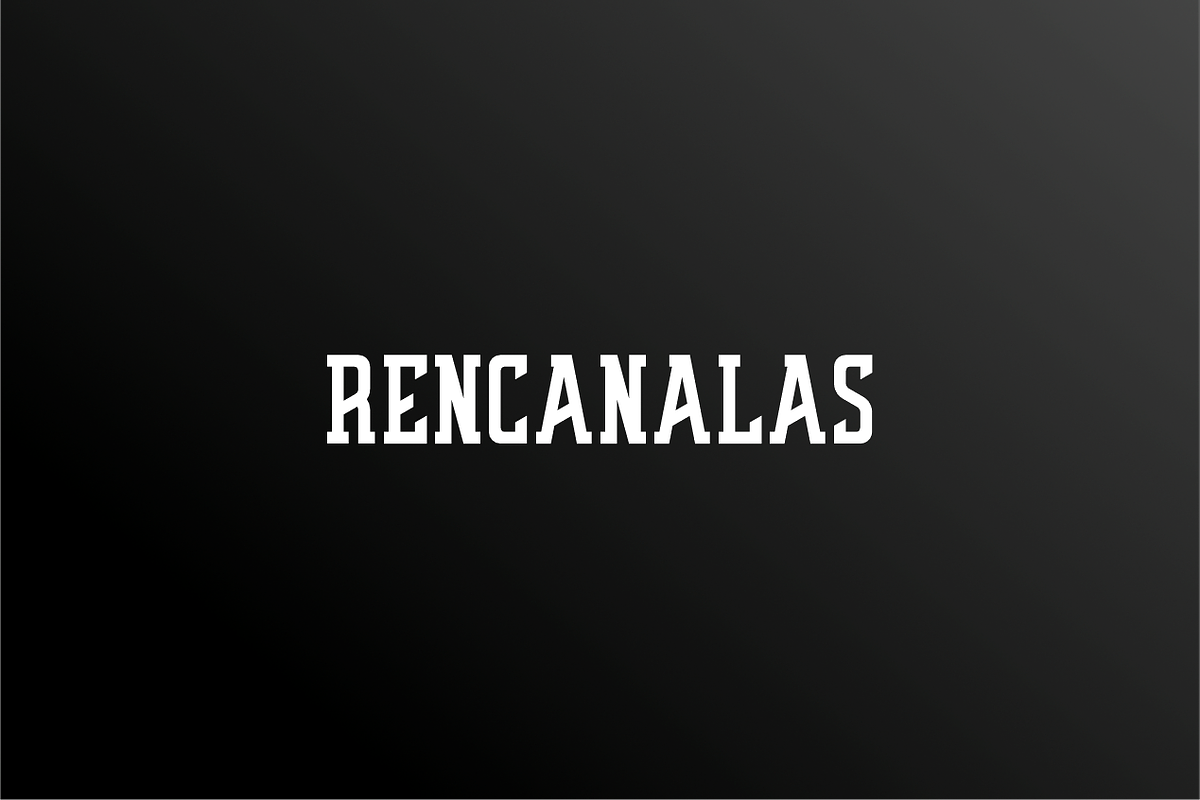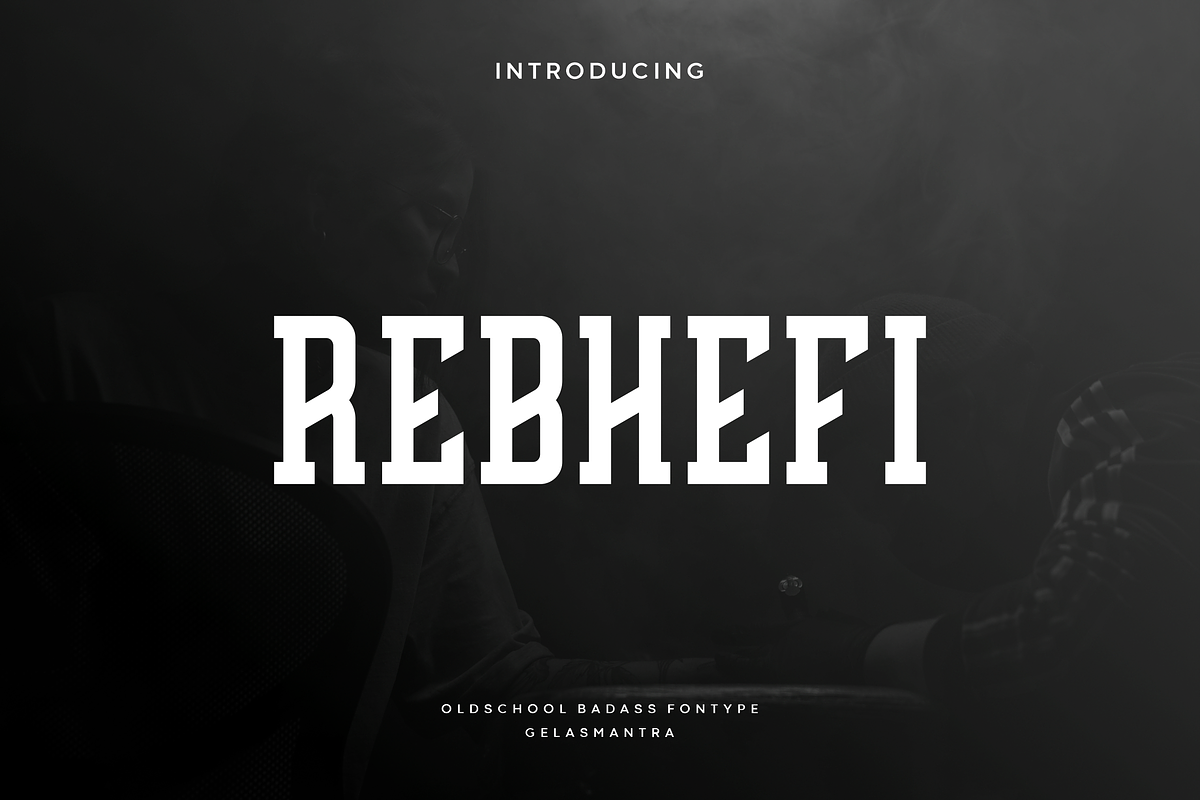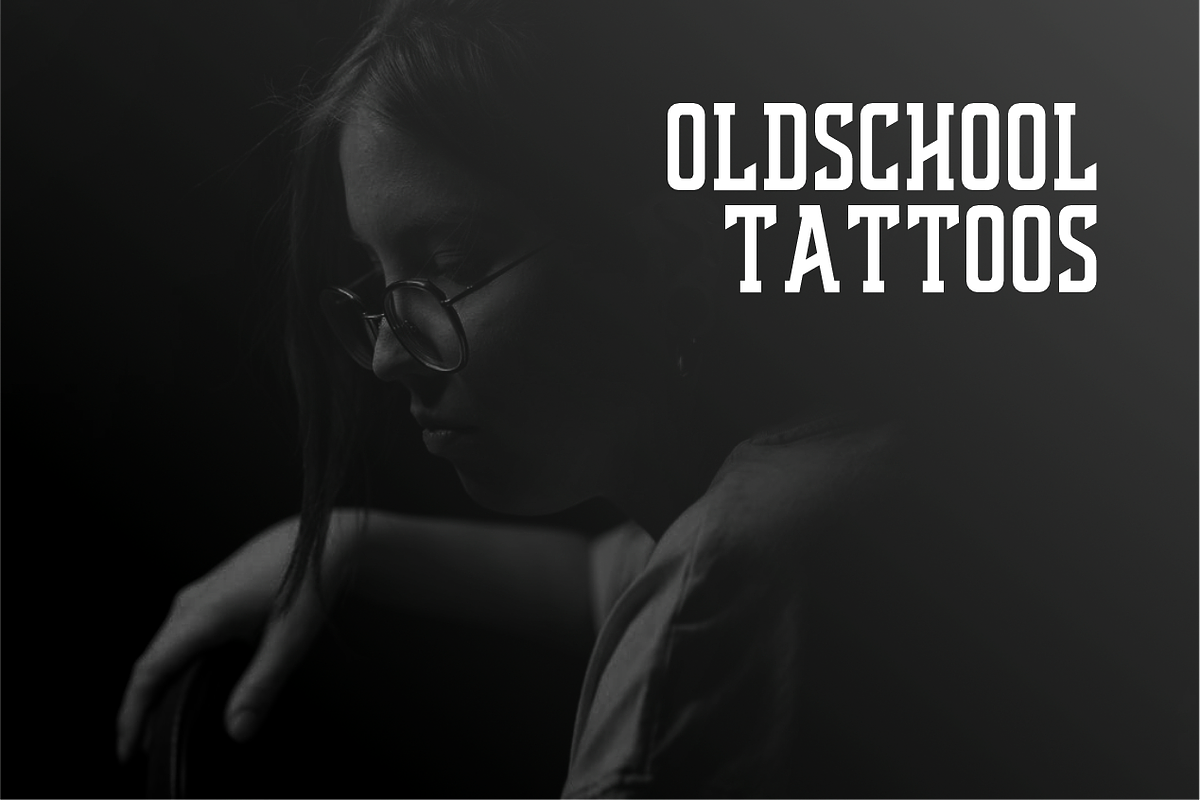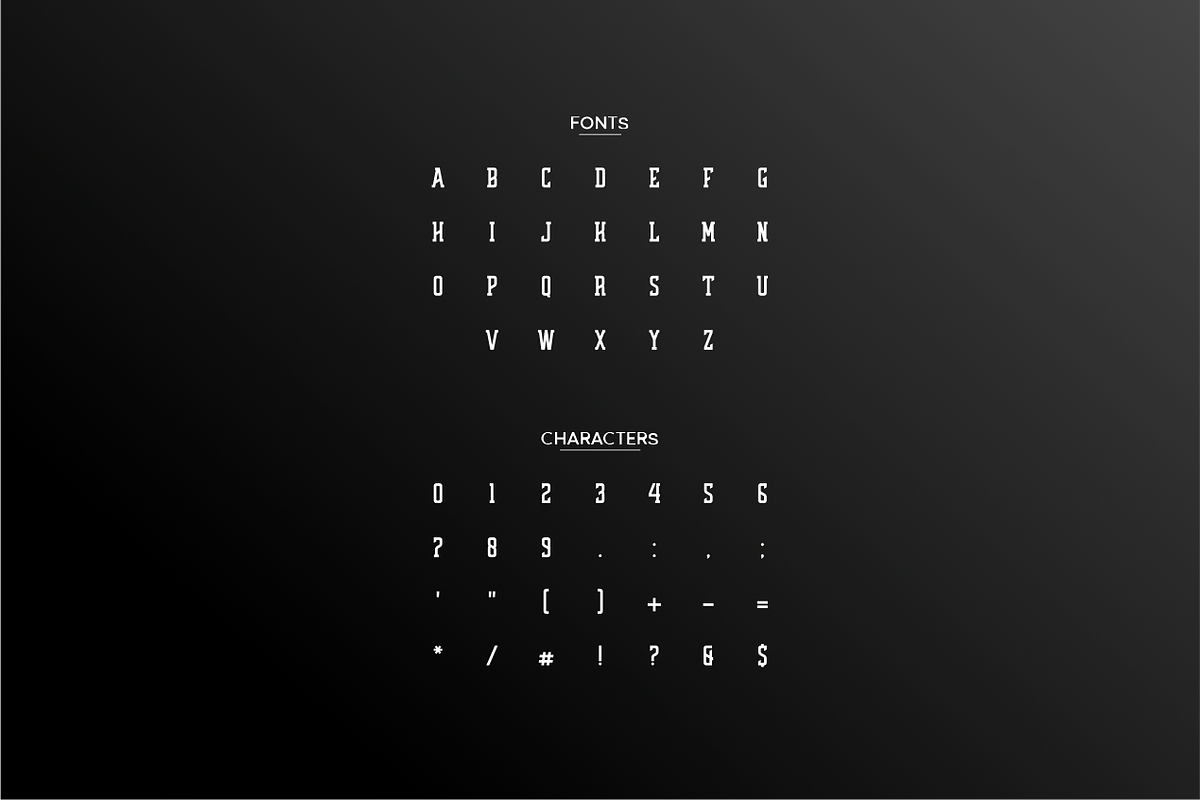
Rebhefi
Rebhefi is a bold and thick lettered display font. Masterfully designed to become a true favorite, this font has the potential to bring each of your creative ideas to the highest level!